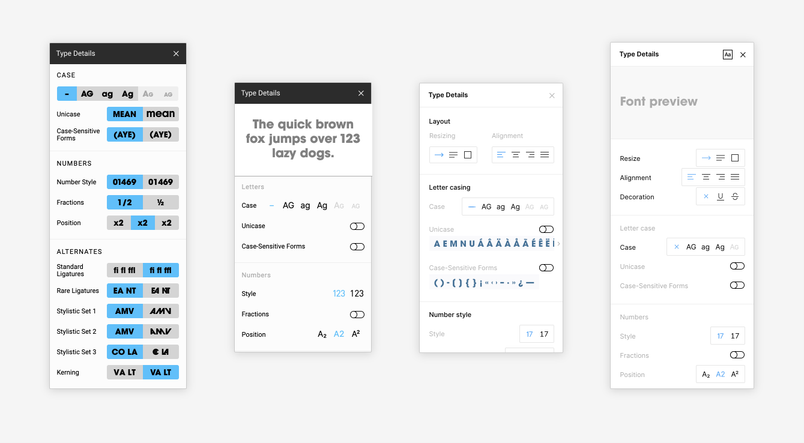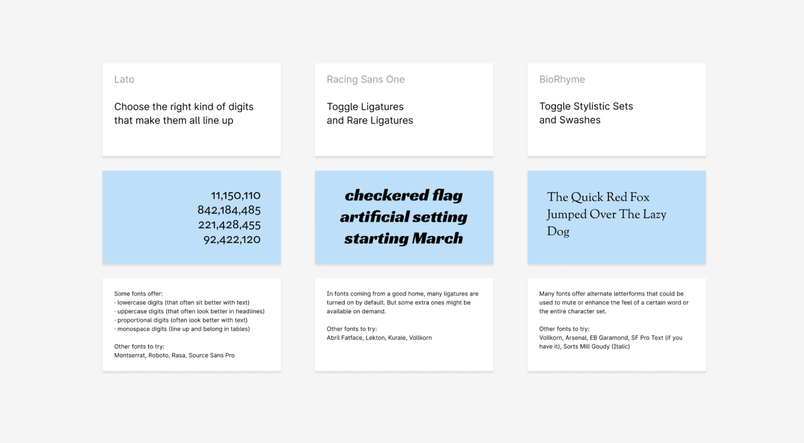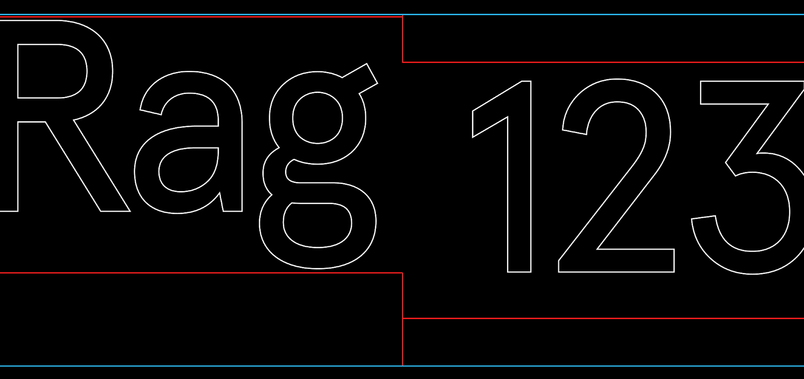
An ode to OpenType: Fall in love with the secret world of fonts
In Figma you can now turn on additional ligatures, customize the style of digits, switch to alternative letterforms, and make use of adjustments available in many of today’s fonts.
Starting today, Figma will support OpenType features of all the fonts you use: local fonts, Google Fonts, and fonts shared inside organizations. This will allow you to turn on additional ligatures, customize the style of digits, switch to alternative letterforms, and make use of adjustments available in many of today’s fonts — through a user interface that will make discovering them as much fun as using them.
If you’re in a hurry, you can jump to the description of the new functionality in Figma. But if you’d prefer a deeper introduction to the world of OpenType, read on for the tale of one designer’s love affair with it.
The mysterious double life of Warnock Pro
I remember exactly when and where I was when I discovered fonts have secrets. It happened many years ago, during one beautiful Amsterdam spring, in a small room at the Vrije Universiteit. I was working on my doctoral thesis, but things weren’t going very well. So, I did what I often do when the creative side of my brain becomes restless: I turned to typography.
I explored the university’s directory of fonts, and dove into the PDF instruction manual of Warnock Pro, one of my favorites. I’d used it before and thought I knew it well, but that day I learned it had been living a mysterious double life. The PDF explained Warnock Pro was more than it appeared: True connoisseurs of the font could move past its basic look and customize the character of its characters.
The options went beyond — far beyond — the standard bold and italic. The first thing I noticed were new number styles, named “old-style figures” and “tabular figures.” These were digits of different shapes and positions, meant to blend better than Warnock Pro’s default digits when used within text, or inside tables:
In addition to lowercase and uppercase, there was also a different, in-between style called “small caps” — meant “to introduce the first few words at the beginning of a story, or to highlight key words within text”:
I also learned that many of the letters came with hidden alternative versions, which — as the PDF explained — “have an ending flourish and could be used at the end of a word or phrase as a design embellishment”:
There was a section called “ordinals,” explaining that Warnock Pro came equipped with beautiful fractions, and what in time would become one of my favorite glyphs ever: numero:
There were also “stylistic alternates,” slightly different versions of a few characters:
And, right next door, “ornaments,” a way to turn the aforementioned letters into all sorts of gorgeous symbols:
The list seemed endless, and I felt overwhelmed; the typeface I thought I knew had so much more to offer than I’d realized. The swashes, the ornaments, the extra digits — I still didn’t quite understand what many of these were for, but I wanted to use them anyway.
After a little digging, there came another shock: Warnock Pro’s secrets were accessible in some design tools I was already using! The options were bundled under an obscure technical term called “OpenType features,” hidden inside submenus, filled with checkmarks attached to scary-sounding names. It was no wonder I’d never stumbled upon them before.
In the weeks to follow I became intoxicated with OpenType. I discovered that a few other fonts also contained these features, and I filled my thesis to the brim with them.
I was like a cook discovering the world’s spices for the first time. Why had no one told me about the existence of typographic paprika, coriander, cumin, and thyme? I’d been working with plain old salt and pepper, when Warnock Pro and other fonts had an endless number of more interesting seasonings.
Predictably, I went overboard, applying the spices bluntly and indiscriminately. I added swashes to my chapter titles, peppered in a few different types of digits, and even snuck in an ornament or two. To top it all, I added an extra section to my thesis titled “A note on typography.” Even there, I set the first two words in small caps, and wrote out the year in old-style digits.
But clumsy as it all was, it also felt profound: I wanted to share what I’d learned with the world. This was, as far as I can remember, my first public declaration of love for typography — and OpenType features were what led me there.
The adolescent years with OpenType
Over the next few years, I made sure to open every PDF that came with a font, and inspect all the OpenType secrets hiding inside.
As time passed, more and more fonts came equipped with special seasoning options. And, in time, online type specimen pages replaced PDFs as the method for communicating them (here’s an example from a font I like a lot, although I cannot quite explain why).
And now, please excuse me as I head to my kitchen, and discover once again how much more I still have to learn about actual spices. Whether I will sneak in a quick session to explore the OpenType features of the font I just bought this morning — there is really no way of knowing.